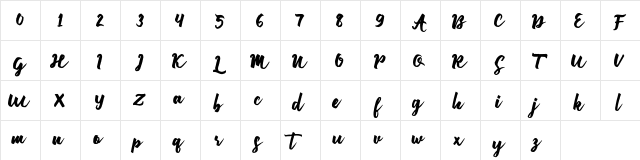
Enforce Justice Regular
| Foundry | Atjcloth |
| Designer | Atjcloth Team |
Design Context for Enforce Justice Typeface
Enforce Justice has the bold swagger of sports branding: strong, assertive letterforms designed to dominate headlines and jerseys alike.
Built for sports team identities, athletic apparel, event posters, and high-energy promotional material.